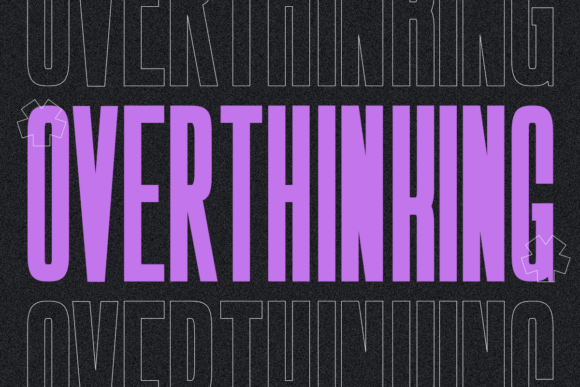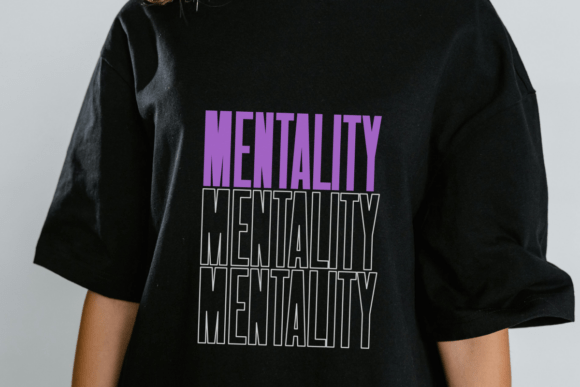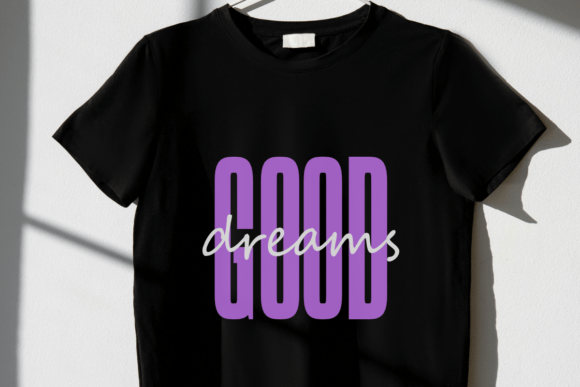
Introducing Condenser Font: The Ultimate Choice for Bold and Elegant Designs
In the world of typography, a font can make or break a design. When it comes to creating bold and eye-catching headlines, editorial layouts, and branding materials, a font with impact is essential. This is where Condenser Font comes in – a modern condensed sans serif font designed to pack maximum impact into minimal width. In this article, we’ll explore the features and benefits of Condenser Font, and why it’s the perfect choice for designers and crafters looking to elevate their designs.
The Power of Condensed Typography
Condensed typography is a design technique used to convey strong messages in a compact and elegant way. By reducing the width of a font, designers can create a sense of urgency, emphasize key information, and add visual interest to a design. Condenser Font takes this concept to the next level with its sleek, tall design that exudes elegance and sophistication.
Key Features of Condenser Font
- Modern Condensed Sans Serif Design: Condenser Font boasts a clean and minimalist design that ensures your message takes center stage.
- Maximum Impact in Minimal Width: With its condensed design, Condenser Font packs a punch even in tight spaces.
- Perfect for Bold Headlines and Editorial Layouts: Use Condenser Font to create striking headlines, magazine titles, and editorial layouts that demand attention.
- Elegant Simplicity: The font’s sleek design ensures that your message is conveyed with elegance and sophistication.
Use Cases for Condenser Font
Condenser Font is an incredibly versatile font that can be used in a wide range of design applications, including:
- Posters and Flyers: Create bold and eye-catching posters and flyers that grab attention.
- Magazine Titles and Editorial Layouts: Use Condenser Font to create striking magazine titles and editorial layouts.
- Product Packaging: Add a touch of elegance and sophistication to your product packaging with Condenser Font.
- Film Covers and Movie Posters: Create bold and eye-catching film covers and movie posters that demand attention.
- Merchandise and Apparel: Use Condenser Font to create striking merchandise and apparel designs.
Why Choose Condenser Font?
With so many fonts available, why choose Condenser Font? Here are just a few reasons why Condenser Font stands out from the crowd:
- Unique and Modern Design: Condenser Font boasts a unique and modern design that ensures your message stands out.
- Elegant and Sophisticated: The font’s sleek design ensures that your message is conveyed with elegance and sophistication.
- Highly Versatile: Condenser Font can be used in a wide range of design applications.
- Perfect for Fashion, Startup Branding, and Urban Streetwear: Condenser Font is ideal for designers and crafters working in the fashion, startup branding, and urban streetwear industries.
In conclusion, Condenser Font is a powerful and versatile font that’s perfect for designers and crafters looking to create bold and elegant designs. With its modern condensed sans serif design, sleek tall design, and highly versatile nature, Condenser Font is the ultimate choice for a wide range of design applications. Whether you’re creating for fashion, startup branding, or urban streetwear, Condenser Font ensures your message grabs attention and makes a lasting impression.